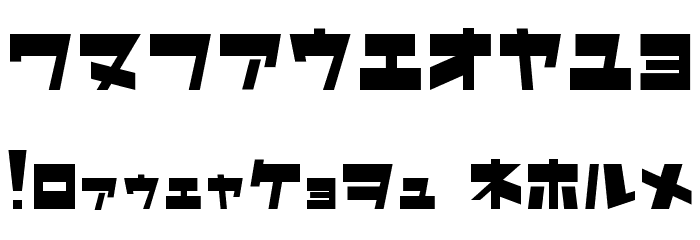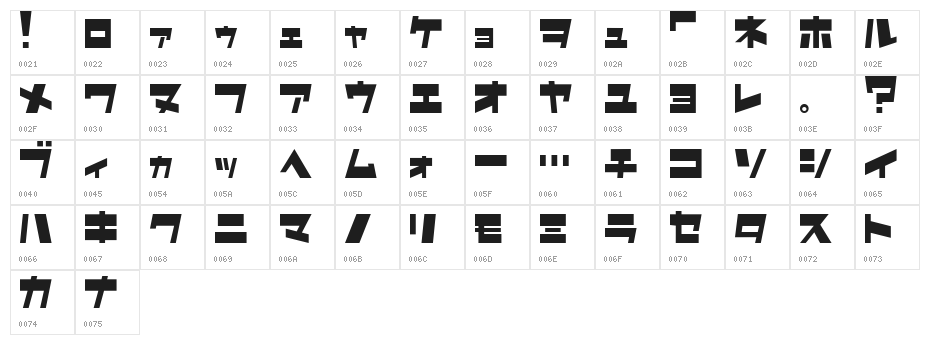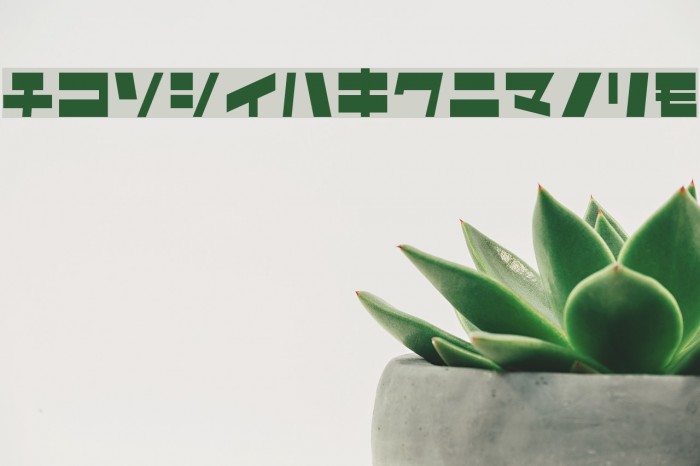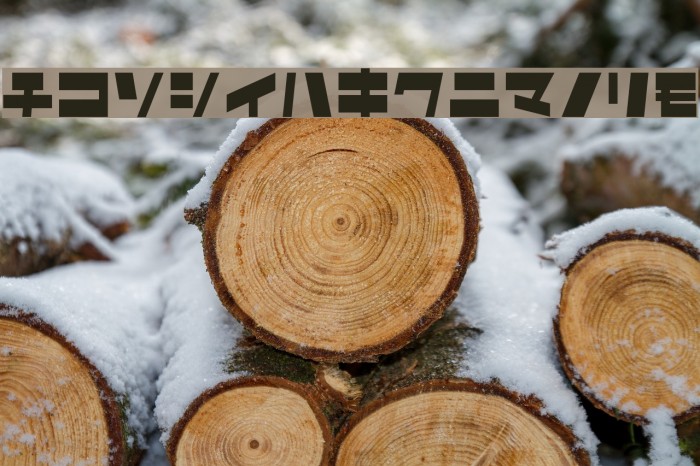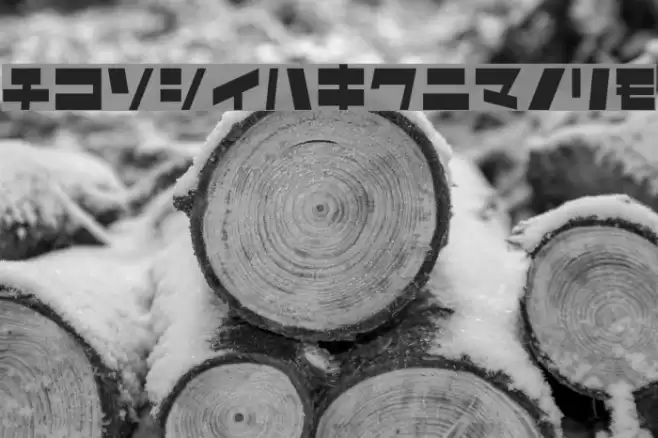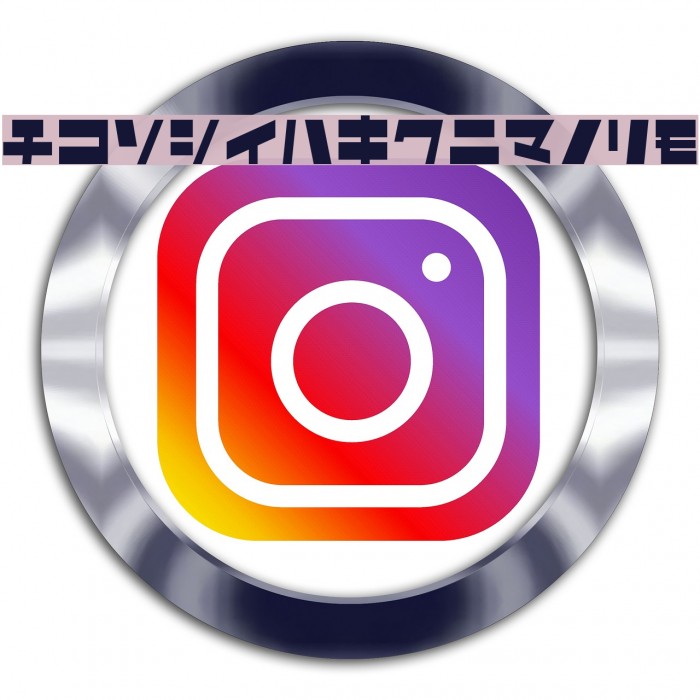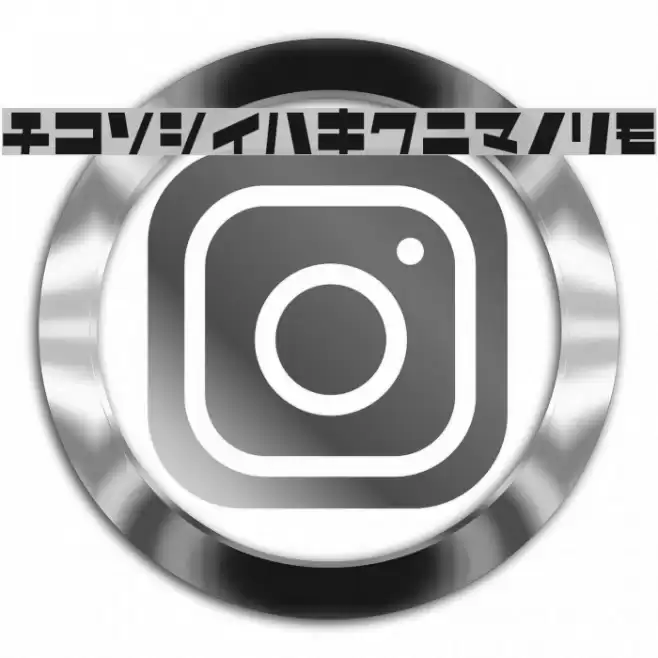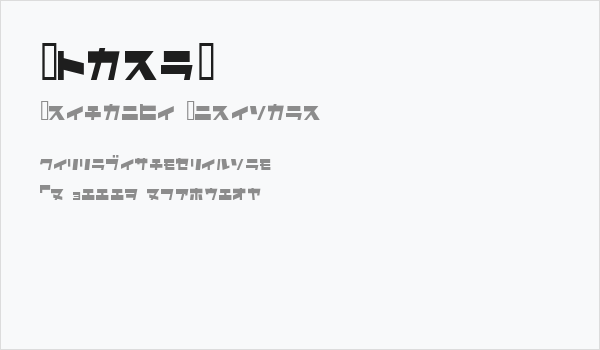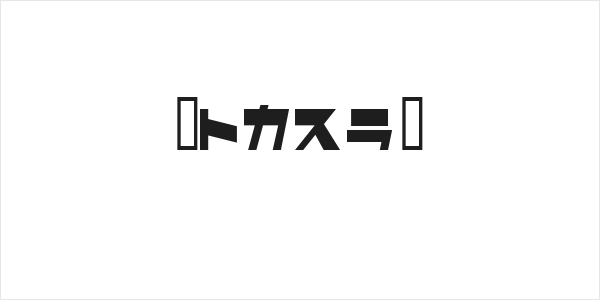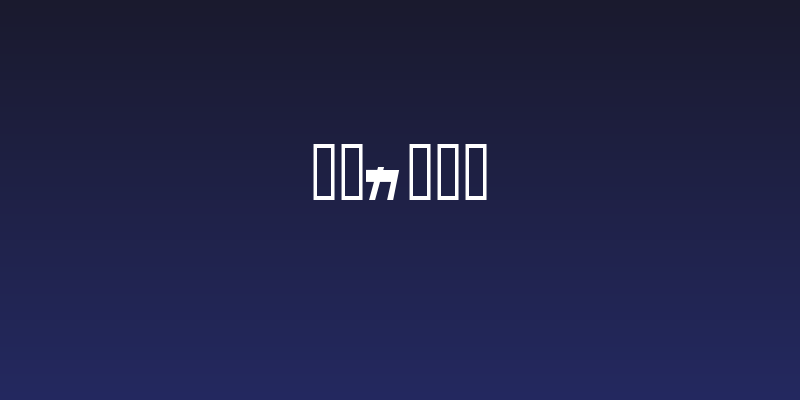
AstroN Font
AstroN Description
This font features a bold, geometric style with a strong emphasis on angular shapes and sharp edges. The characters are constructed with thick lines and a blocky appearance, giving it a futuristic and digital feel. The uniformity in stroke width across all characters contributes to a cohesive and structured look. This font is highly legible and makes a strong visual impact, suitable for attention-grabbing headlines or titles. The design is modern and sleek, with a touch of retro-futurism, making it versatile for various creative projects.
| Proposed Projects | Ideal for sci-fi themed designs, tech branding, video game titles, and digital media. |